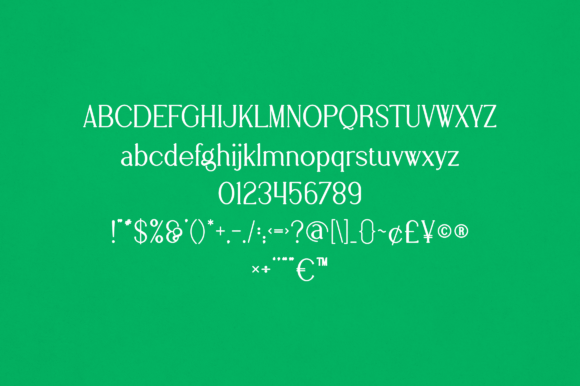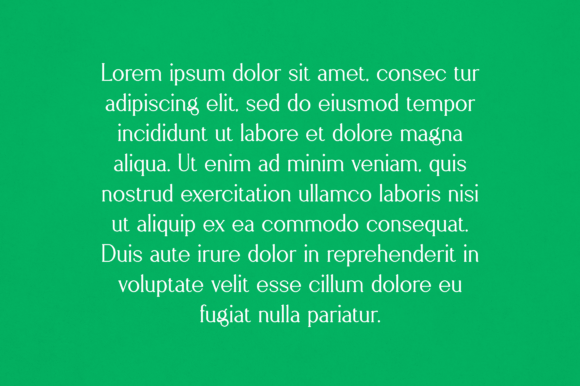
Fern Font: Elevate Your Typography with Elegance and Versatility
Are you tired of using the same old fonts for your design projects? Look no further than Fern Font, a stunning and versatile typeface that will add a touch of sophistication to any design. With its elegant curves and unique charm, Fern Font is perfect for designers and crafters looking to create truly unique typography.
Fern Font is an elegant and versatile font that will make your typography truly unique. Its sophisticated design makes it perfect for a wide range of design projects, from logos and branding to headlines and plain text. Whether you’re working on a branding project, home-ware design, product packaging, or magazine header, Fern Font is the perfect choice.
What Makes Fern Font So Special?
Fern Font is more than just a font – it’s a design statement. Its elegant curves and unique charm make it stand out from the crowd, adding a touch of sophistication to any design. Here are just a few reasons why Fern Font is a must-have for designers and crafters:
- Elegant and Versatile: Fern Font is designed to be elegant and versatile, making it perfect for a wide range of design projects.
- Unique Charm: Fern Font has a unique charm that sets it apart from other fonts, making it perfect for designers and crafters looking to create truly unique typography.
- Perfect for Branding: Fern Font is perfect for branding projects, adding a touch of sophistication and elegance to any logo or brand identity.
Uses for Fern Font
Fern Font is perfect for a wide range of design projects, including:
- Branding Projects: Use Fern Font to create a unique and sophisticated brand identity that will set you apart from the competition.
- Home-Ware Designs: Add a touch of elegance to your home-ware designs with Fern Font, perfect for creating stylish and sophisticated packaging.
- Product Packaging: Use Fern Font to create eye-catching and elegant product packaging that will make your products stand out.
- Magazine Headers: Add a touch of sophistication to your magazine headers with Fern Font, perfect for creating stylish and elegant typography.
- Text Overlays: Use Fern Font as a stylish text overlay to any background image, adding a touch of elegance and sophistication to your designs.
Why Choose Fern Font?
With so many fonts to choose from, why choose Fern Font? Here are just a few reasons why Fern Font is the perfect choice for designers and crafters:
- High-Quality Design: Fern Font is designed to be high-quality and elegant, making it perfect for professional design projects.
- Easy to Read: Fern Font is easy to read, making it perfect for use in a wide range of design projects, from logos and branding to headlines and plain text.
- Versatile: Fern Font is versatile and can be used in a wide range of design projects, from digital designs to print materials.
In conclusion, Fern Font is a stunning and versatile typeface that is perfect for designers and crafters looking to create truly unique typography. With its elegant curves and unique charm, Fern Font is perfect for a wide range of design projects, from branding and logos to headlines and plain text. Whether you’re working on a digital design or print material, Fern Font is the perfect choice.